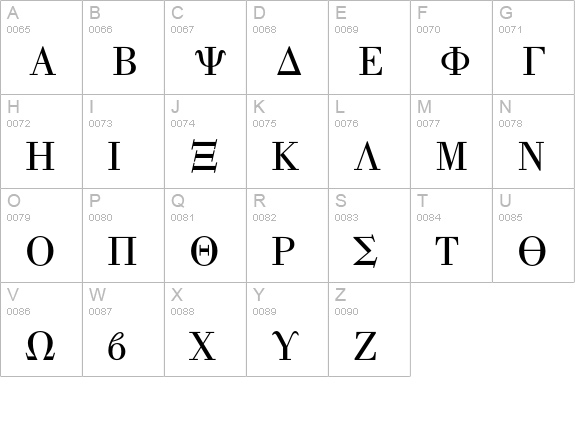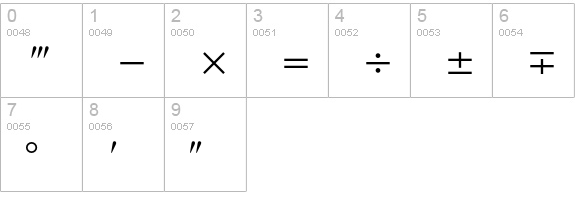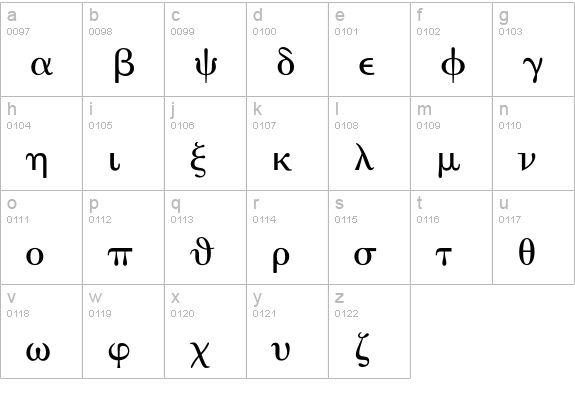
Math with Greek Font Details
Math with Greek font is a captivating and versatile typeface that beautifully combines the elegance of Greek letterforms with the precision and clarity of mathematical symbols. This unique font is perfect for a wide range of applications, including scientific publications, mathematical textbooks, educational materials, and online courses. With its intricate detailing and exquisite design, Math with Greek font effortlessly captures the essence of mathematical concepts, making complex equations and formulas appear visually appealing and easy to comprehend. Each letter and symbol is meticulously crafted to ensure optimal legibility and aesthetic appeal, enhancing the overall reading experience. One of the key highlights of Math with Greek font is its availability as a free download on FontsMarket.com. This means that you can freely access and incorporate this remarkable typeface into your projects without any hassle. Whether you are a student, teacher, researcher, or designer, having access to this font will undoubtedly elevate the quality and professionalism of your work. FontsMarket.com is a renowned platform that offers a vast collection of high-quality fonts, and Math with Greek font is just one of the many exceptional options available. With a simple and user-friendly interface, FontsMarket.com allows you to conveniently and securely download this font, ensuring that you can quickly integrate it into your projects. In conclusion, Math with Greek font is a visually stunning and functional typeface that harmoniously blends the beauty of Greek letterforms with the precision of mathematical symbols. Its availability as a free download on FontsMarket.com makes it easily accessible to anyone seeking to enhance their mathematical and scientific materials. Incorporate Math with Greek font into your work today and experience its transformative impact.